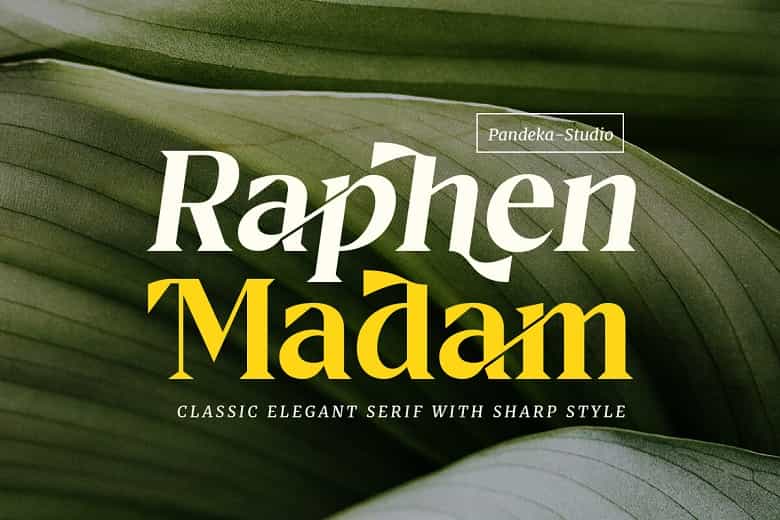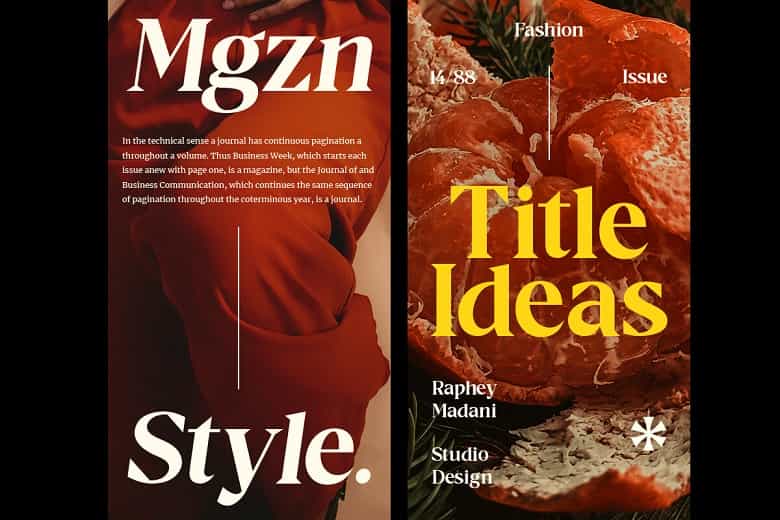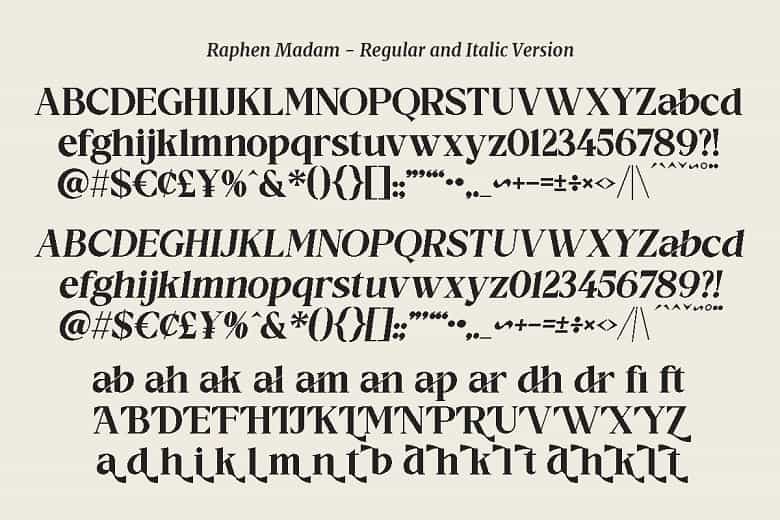
Raphen Madam is a classic elegant serif font that we produce with special shapes and any creative ligature and alternate ideal for a brand or logo design. Raphen Madam is both courageous stylish to be used in the large sized text for both print and web based media.